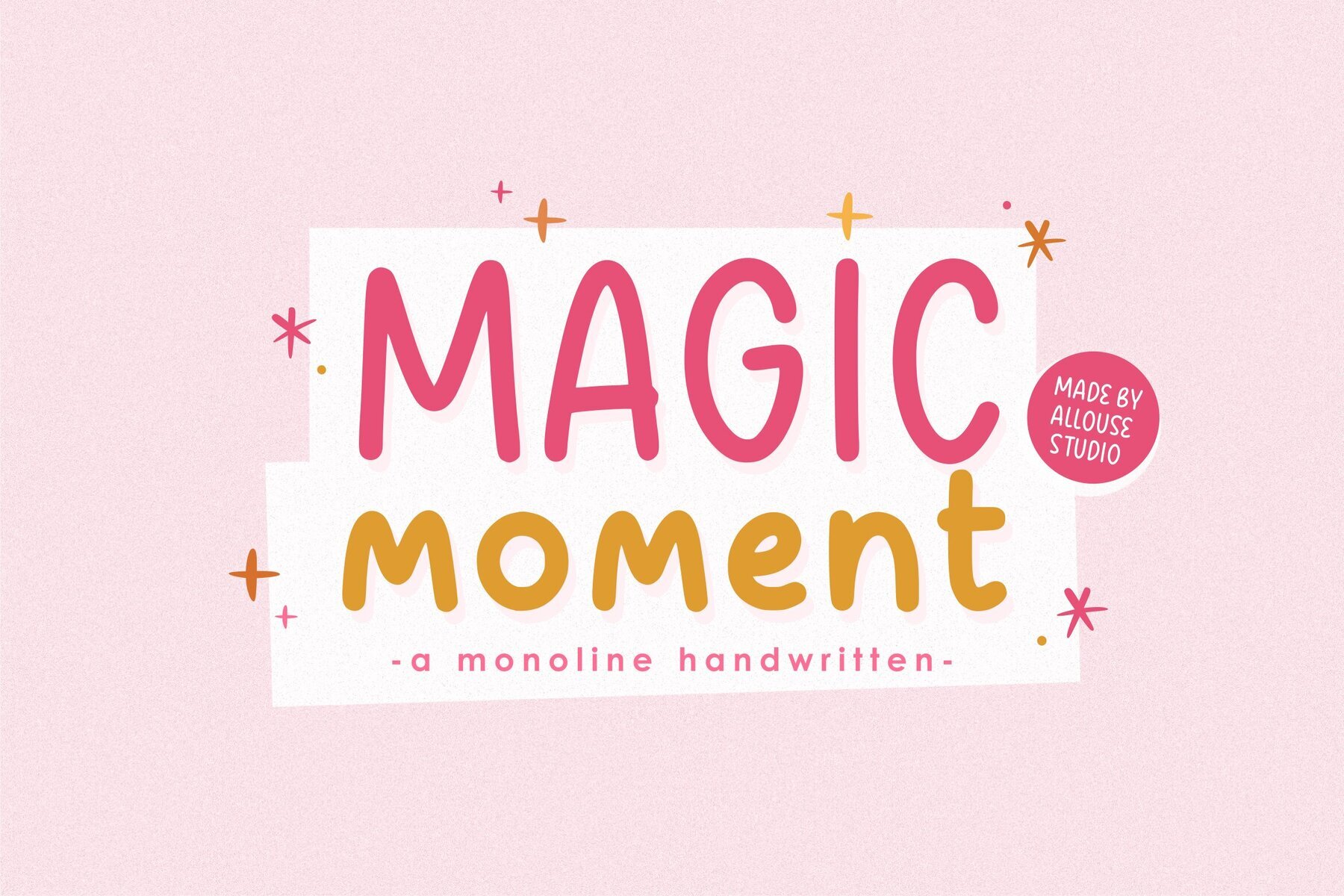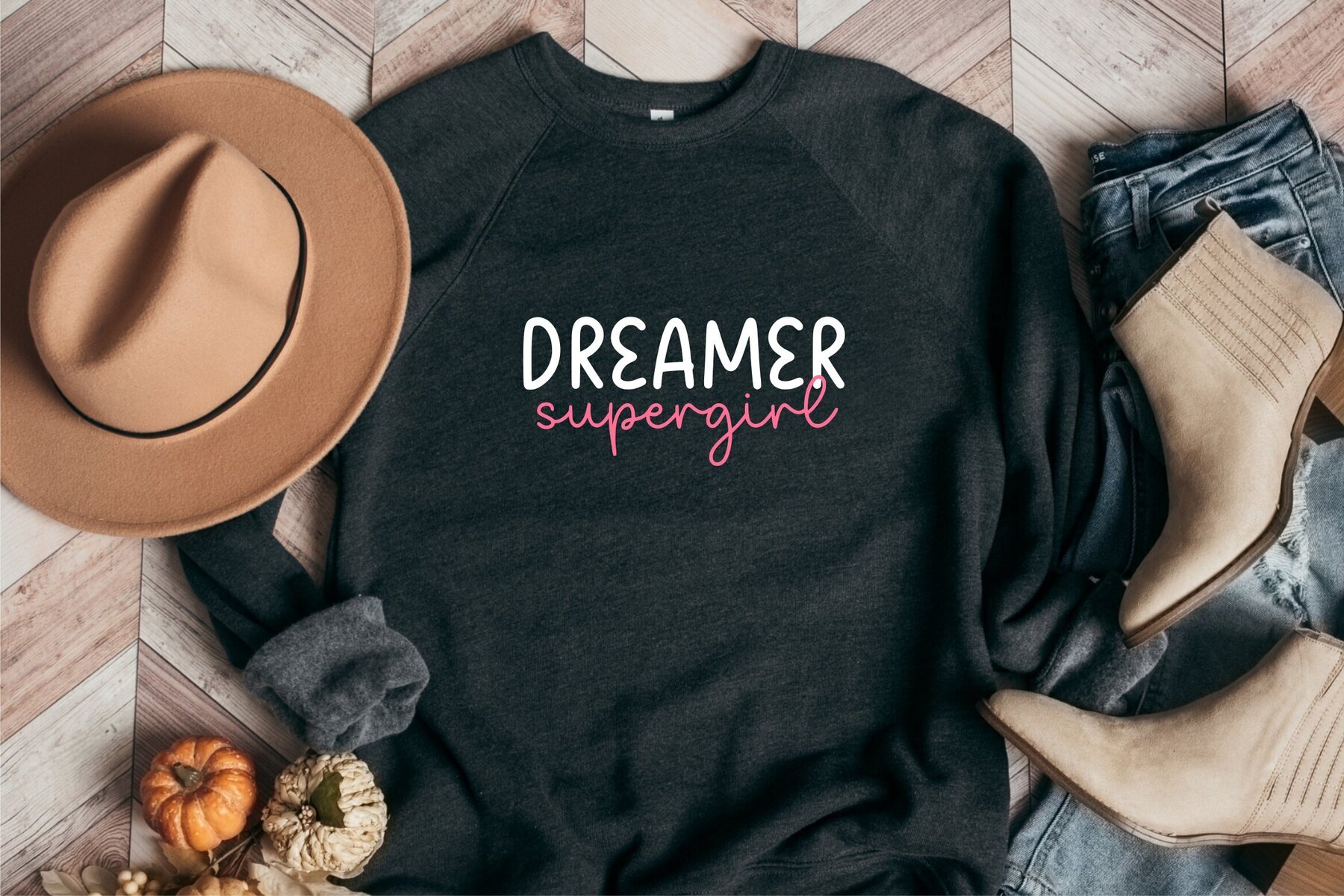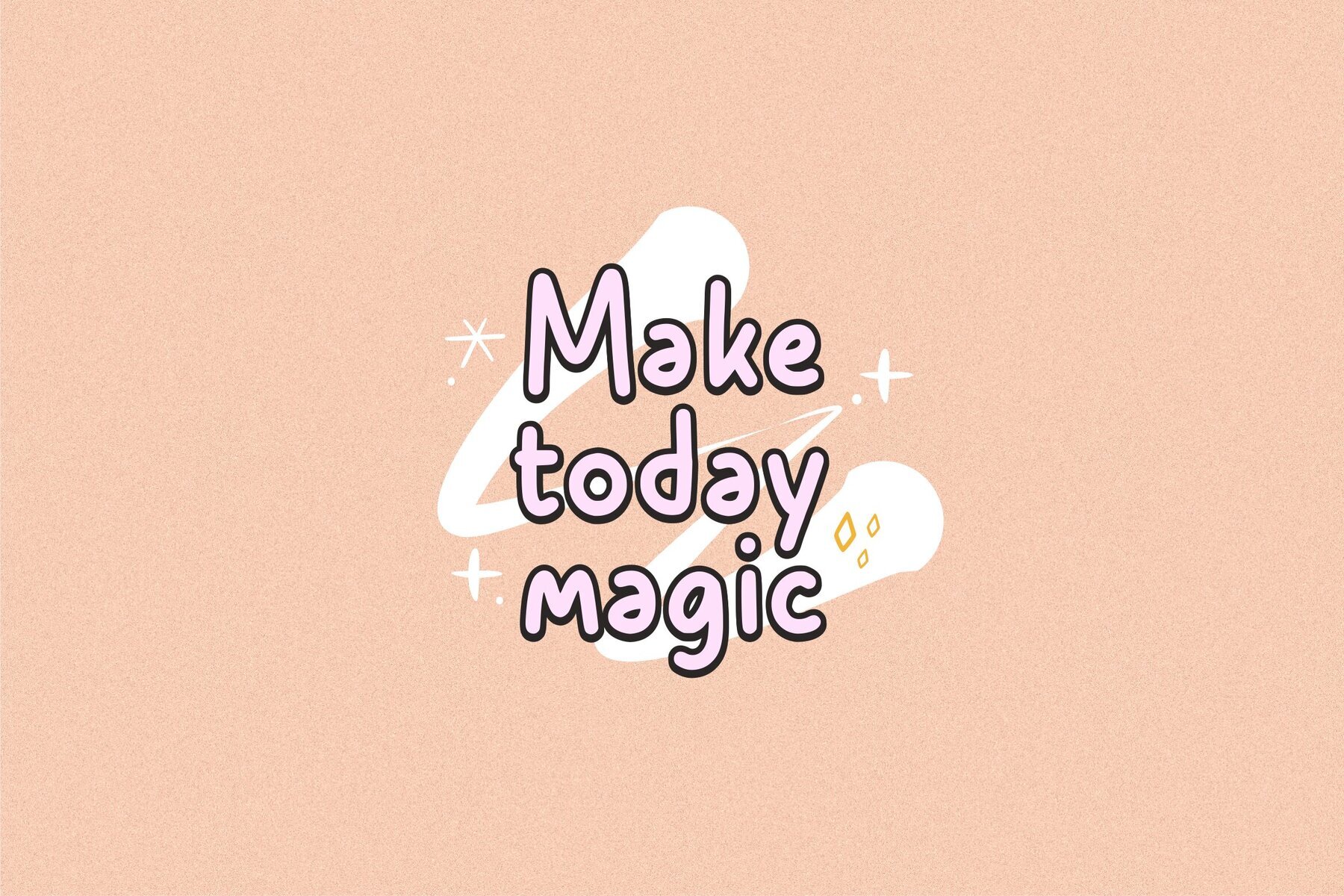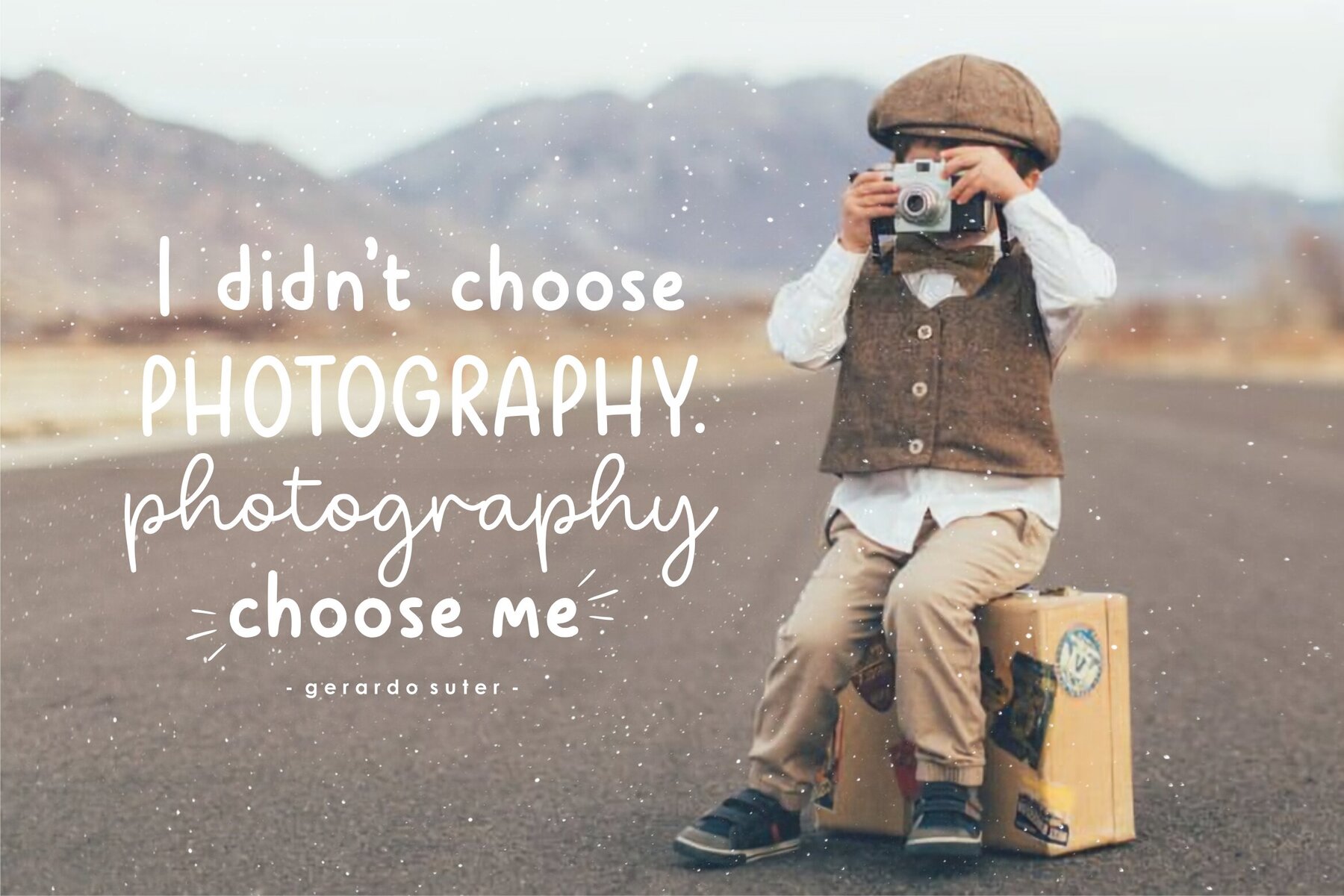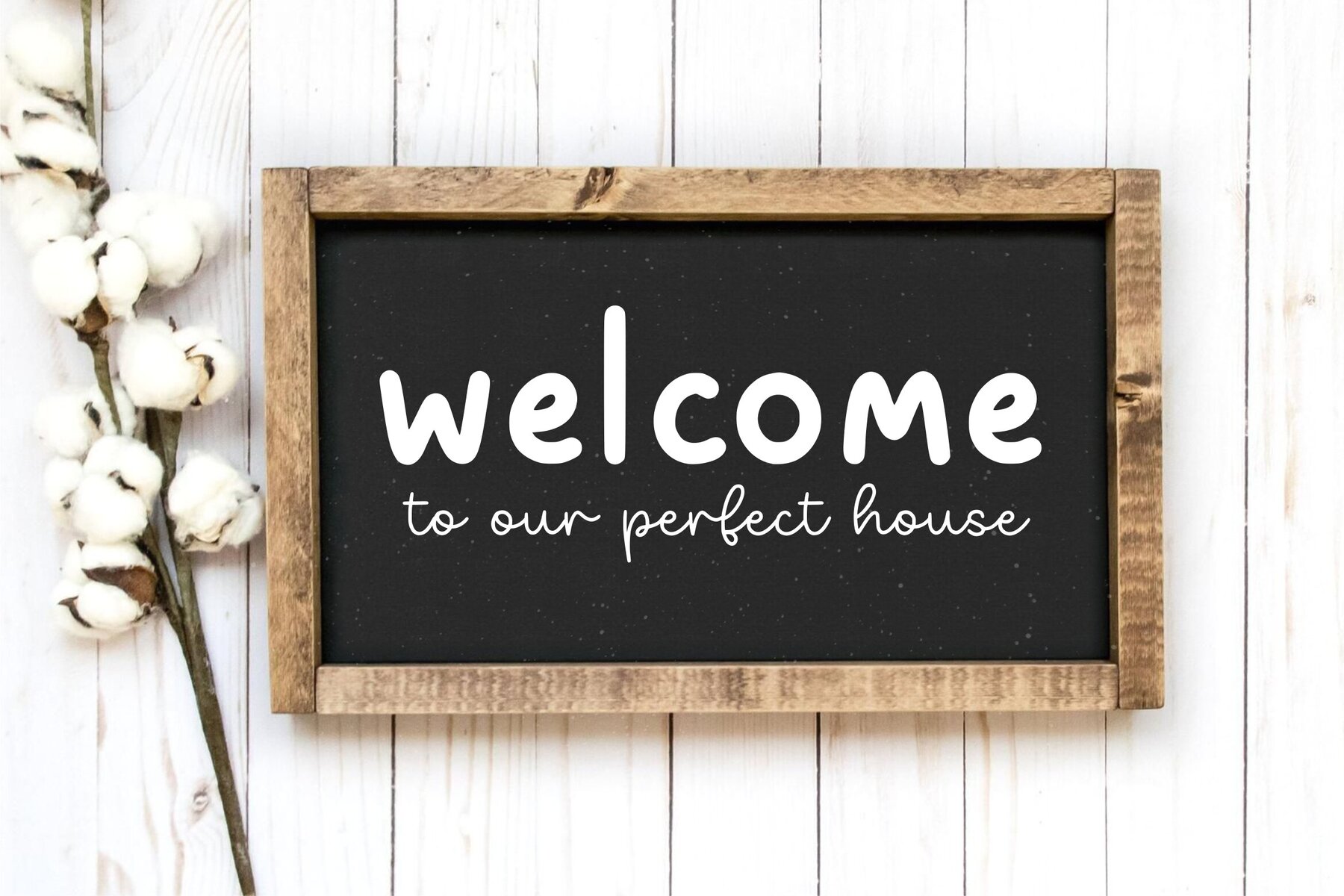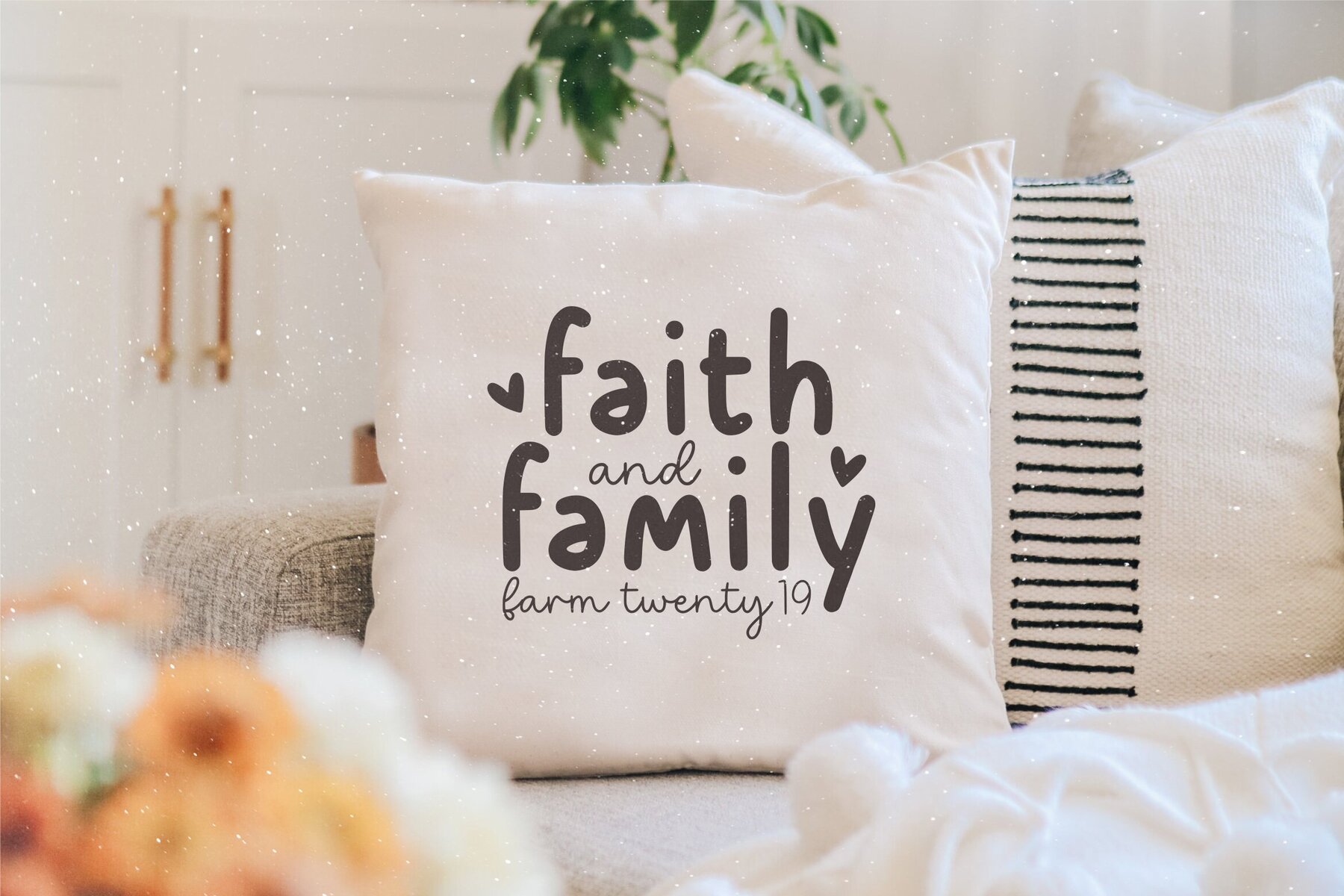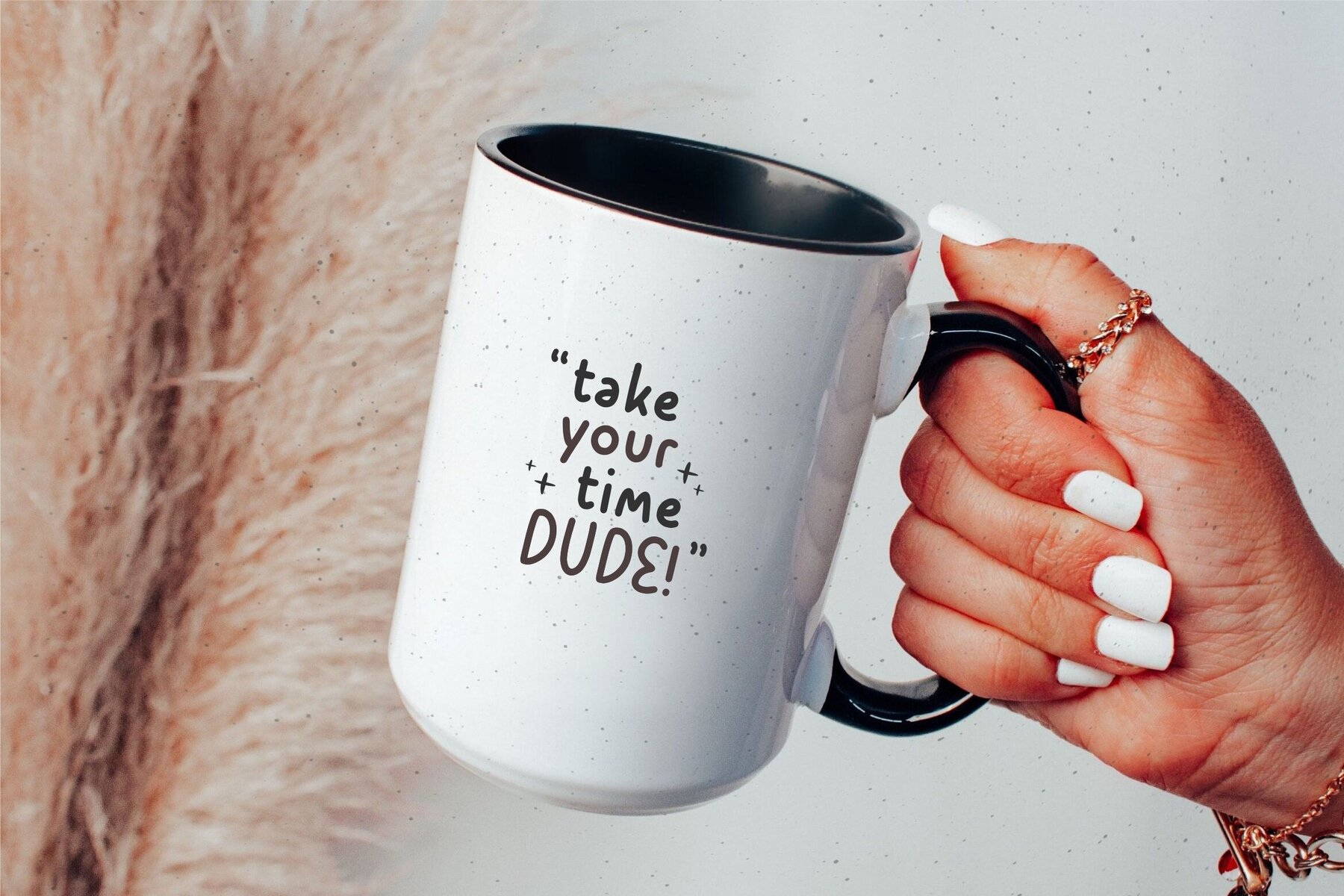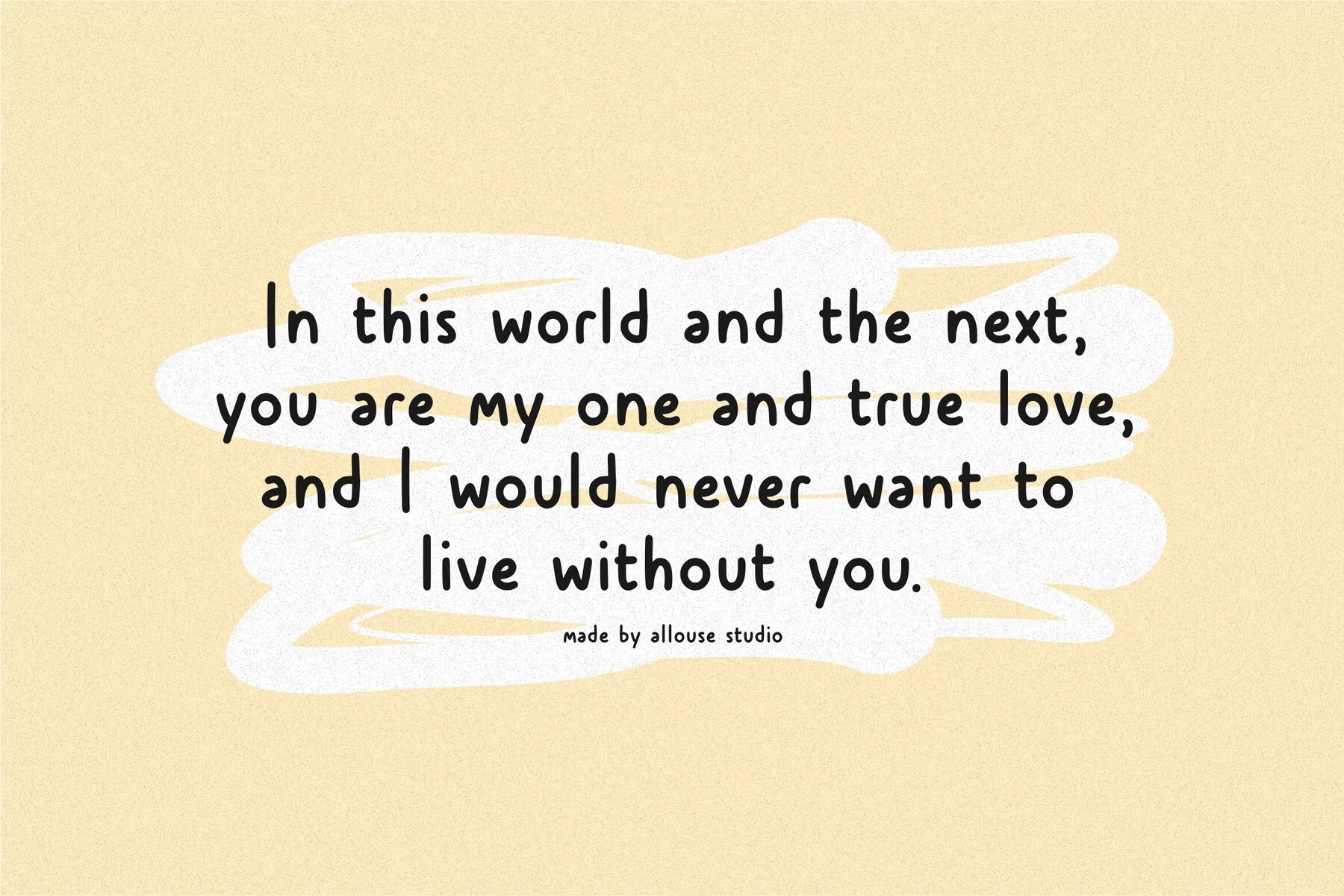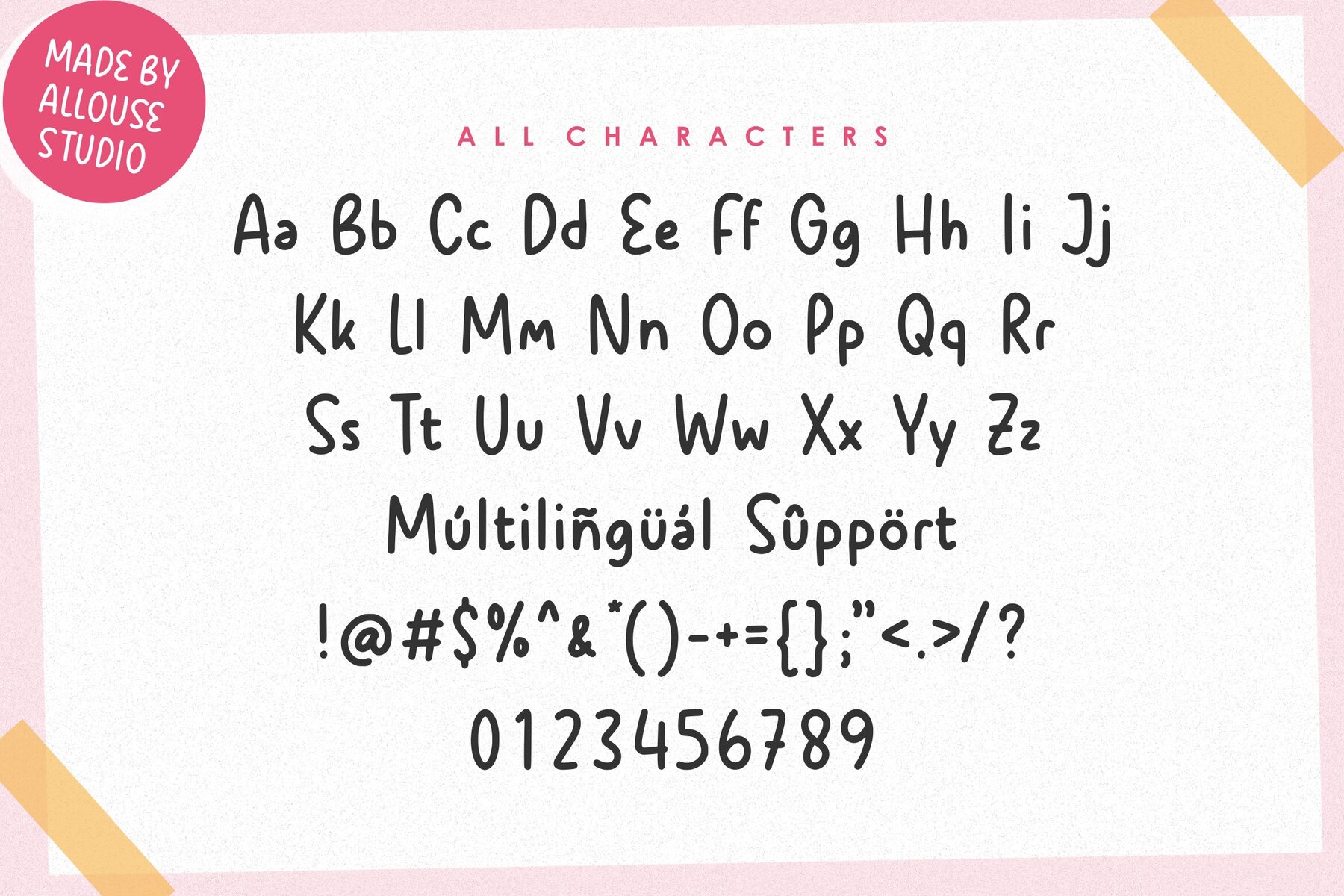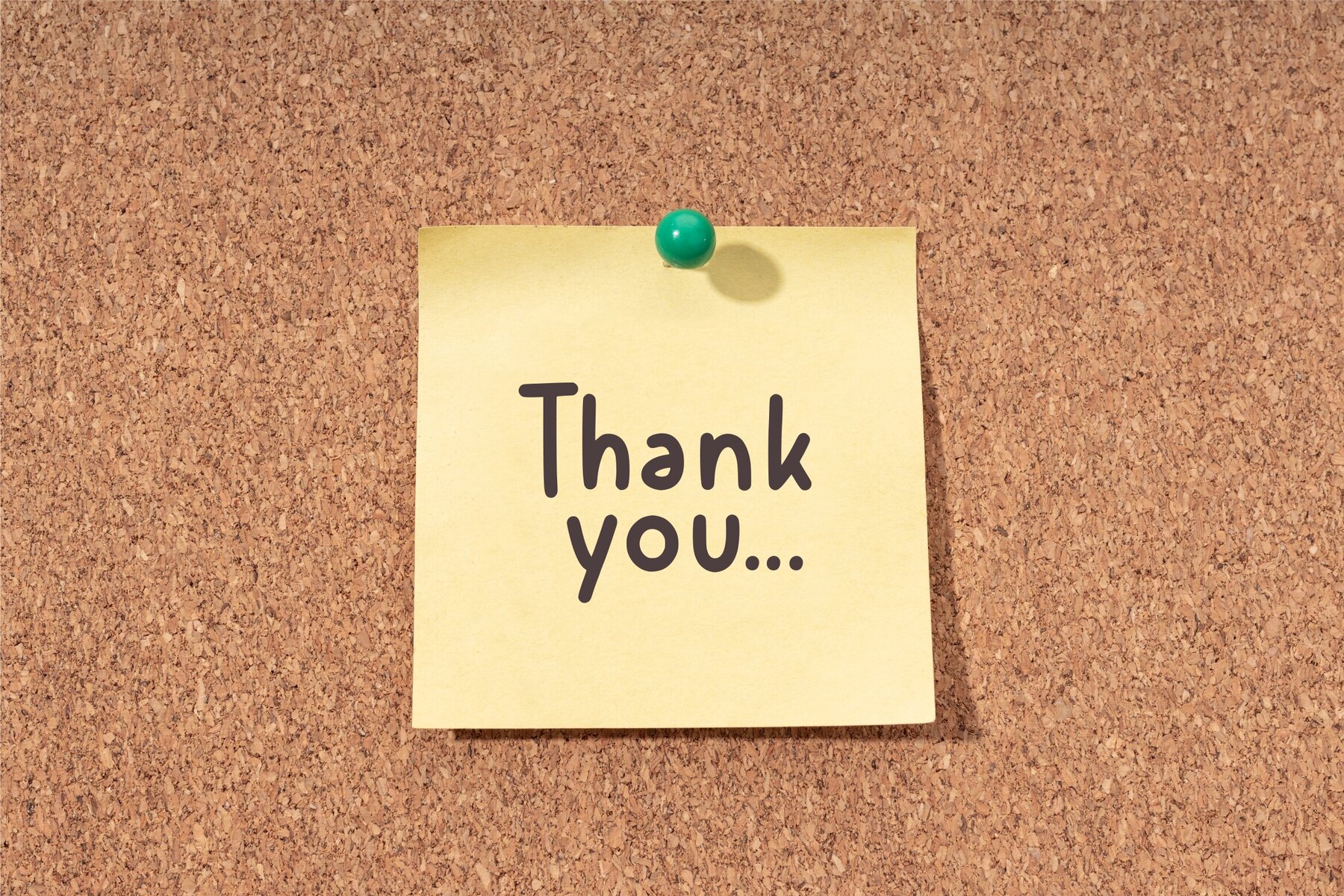
Magic Moment Font
Magic Moment Regular
Magic Moment by Allouse.Studio offers a captivating monoline handwritten style, ideal for adding a personal touch to any project. Its versatility makes it a great choice for various design needs such as product packaging, branding projects, magazines, social media graphics, wedding invites, or simply to enhance text overlays on backgrounds.Magic Moment: A Monoline Handwritten Font